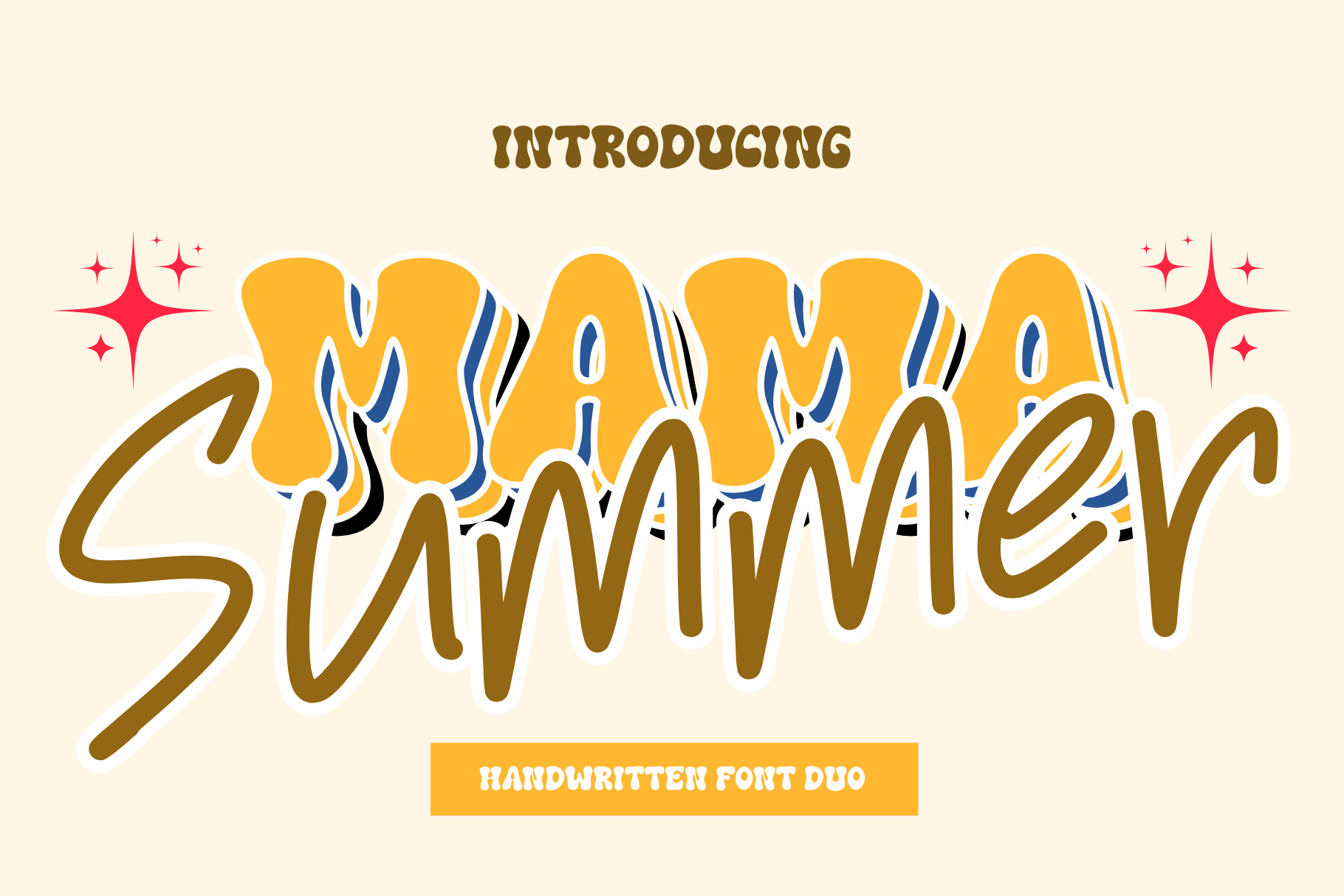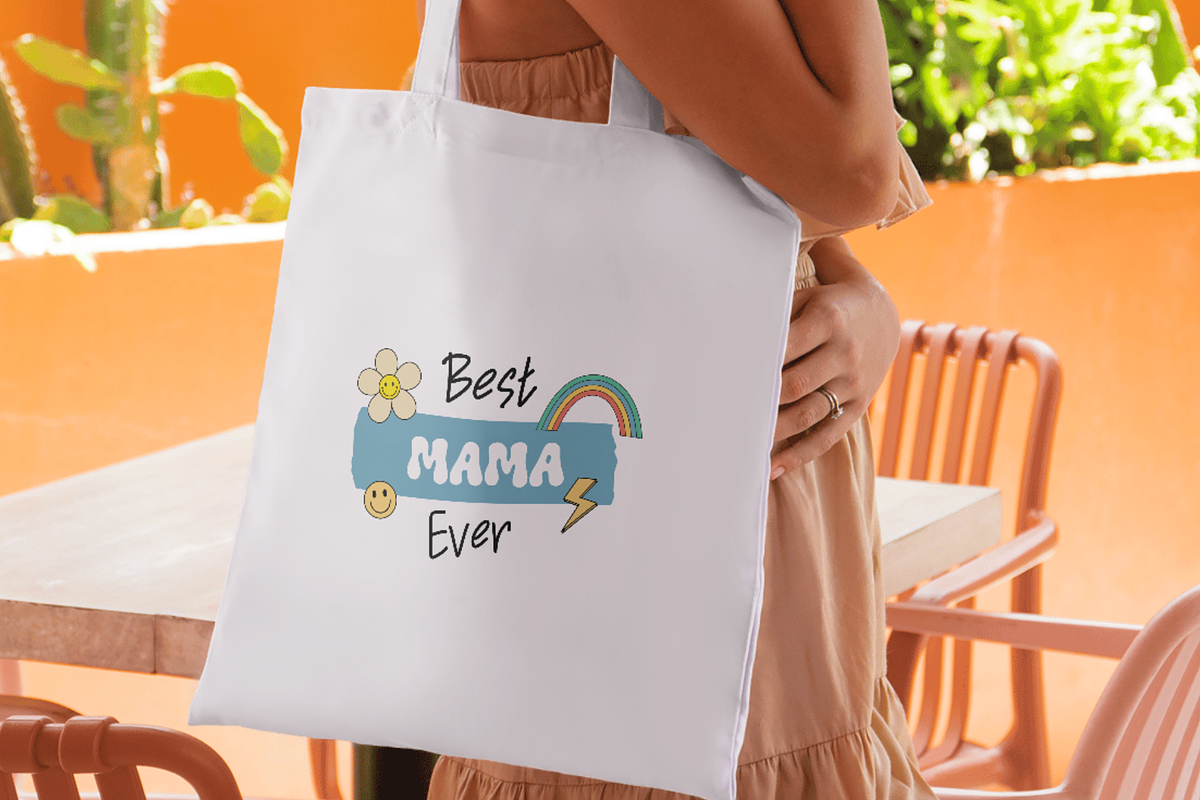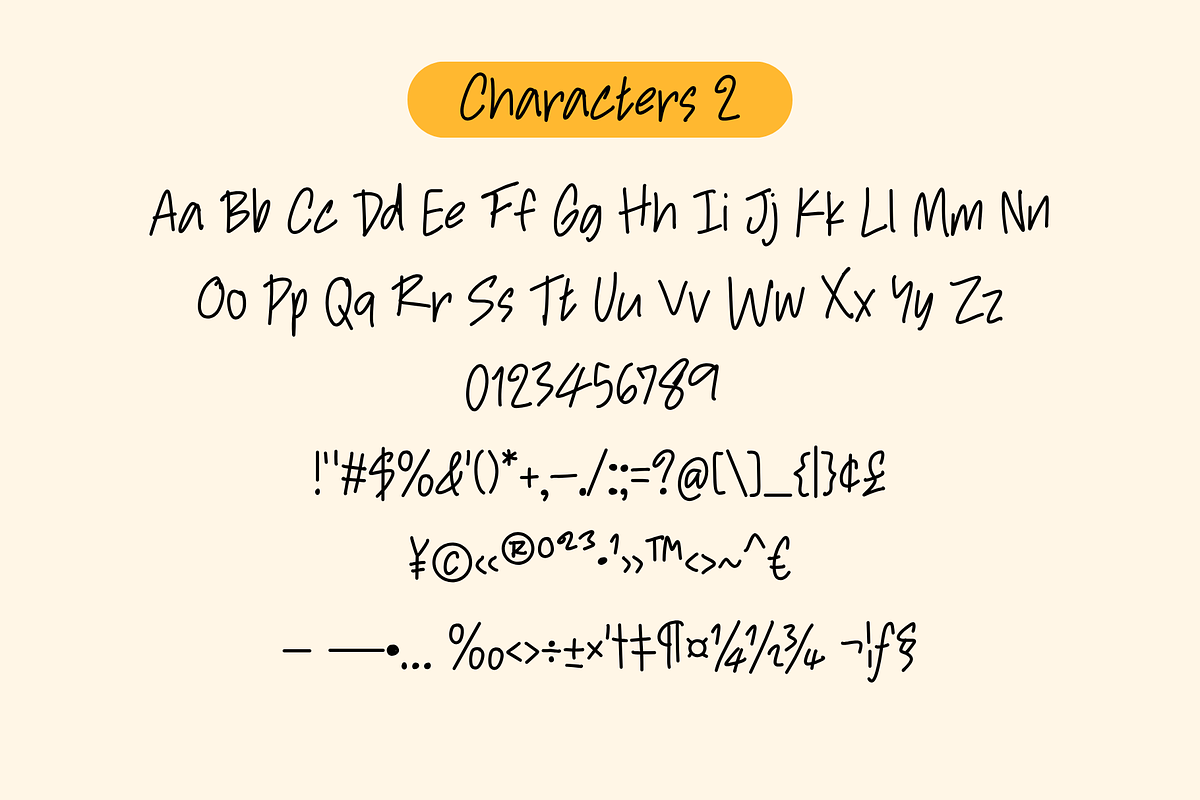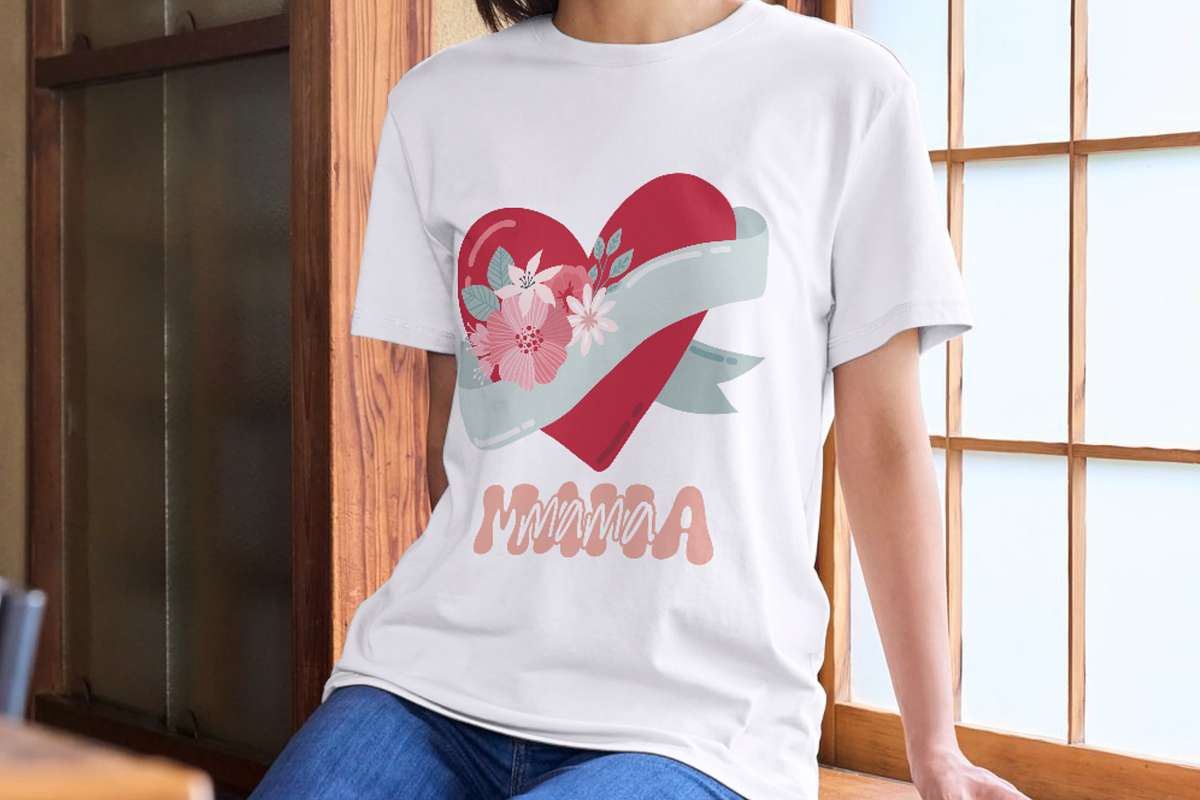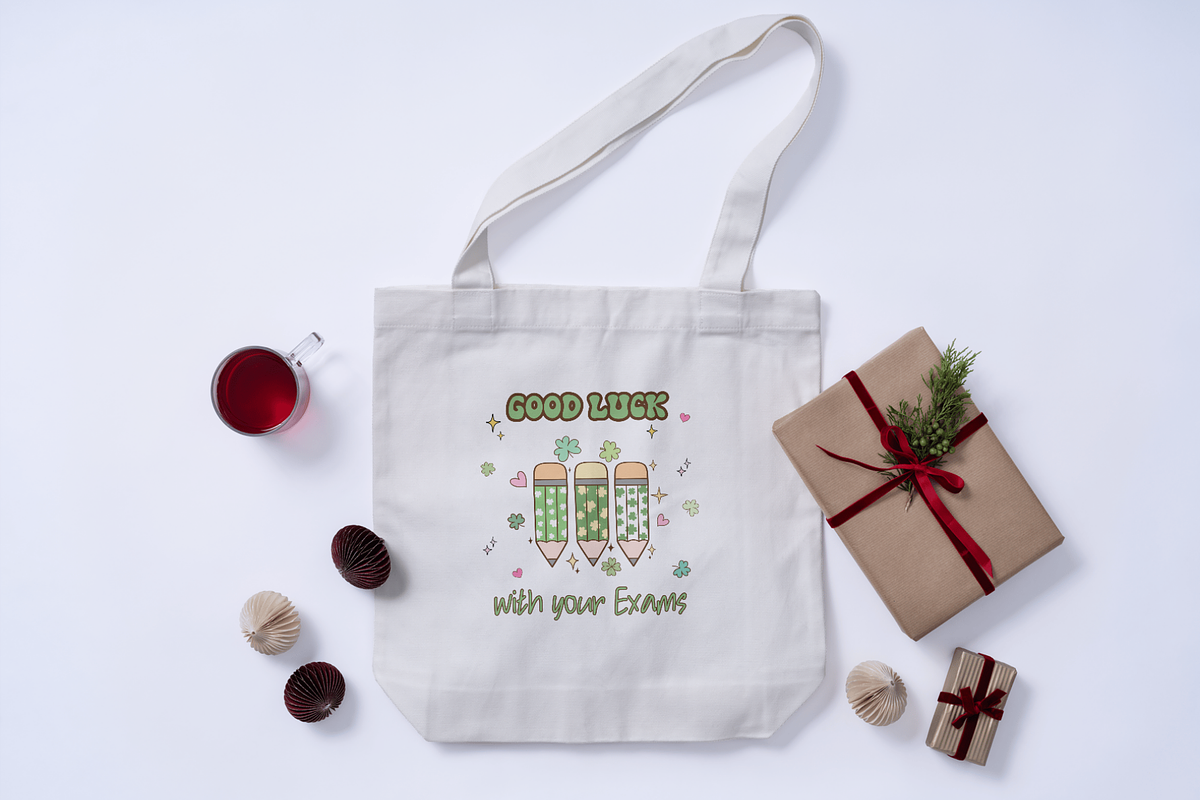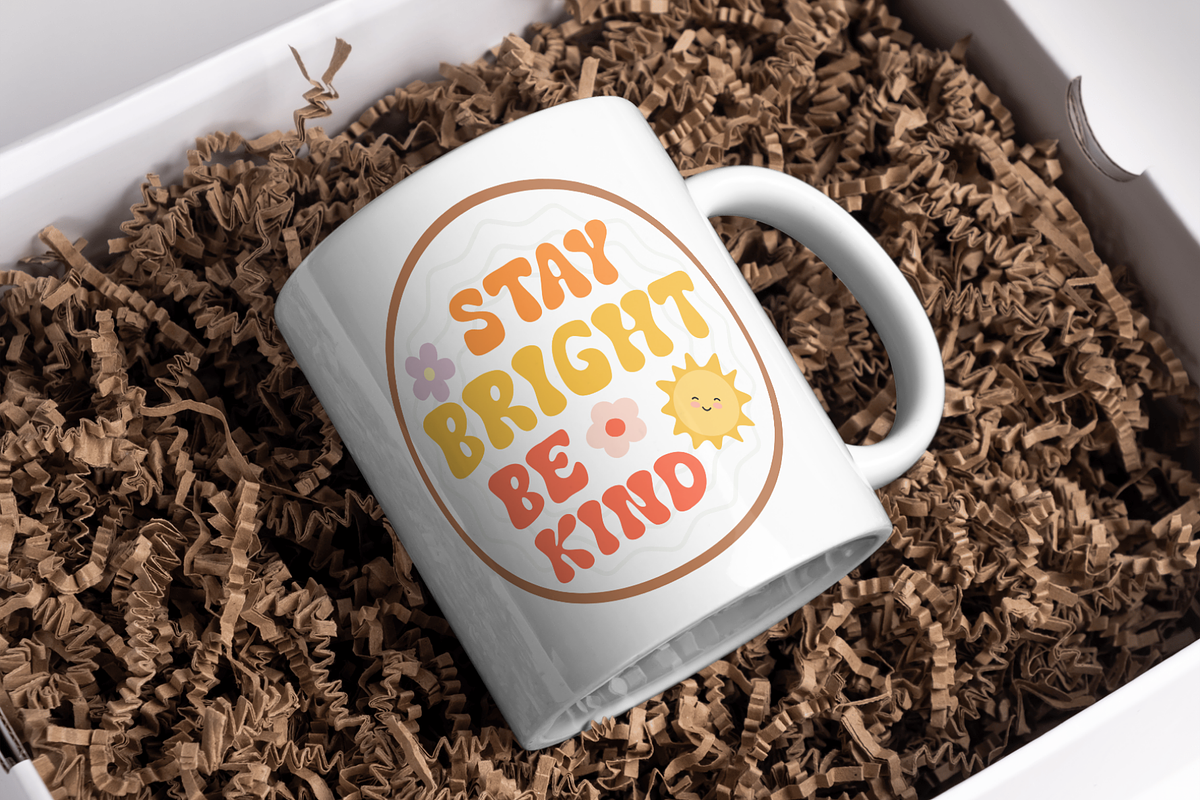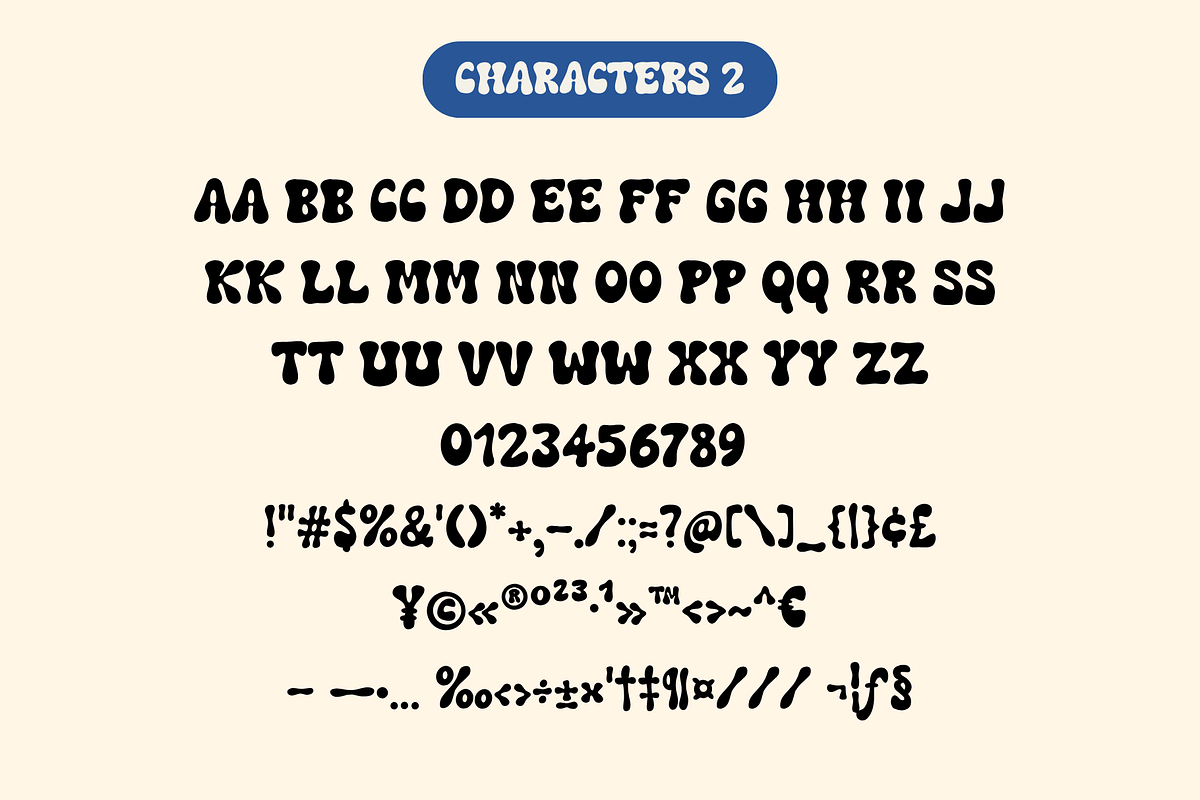
Mama Summer is a charming duo font
Mama Summer is a charming duo font that beautifully pairs a flowing script with a bold handwritten style. Designed to capture warmth, and a affection, this font is perfect for projects that celebrate love, family, and heartfelt moments.
The elegant script brings a soft, romantic touch, while the bold handwritten font adds a strong, friendly presence—creating a perfect balance for eye-catching designs. Whether you’re crafting Mother’s Day cards, t-shirt graphics, social media posts, or branding, Mama Summer delivers a natural and expressive feel that stands out effortlessly.